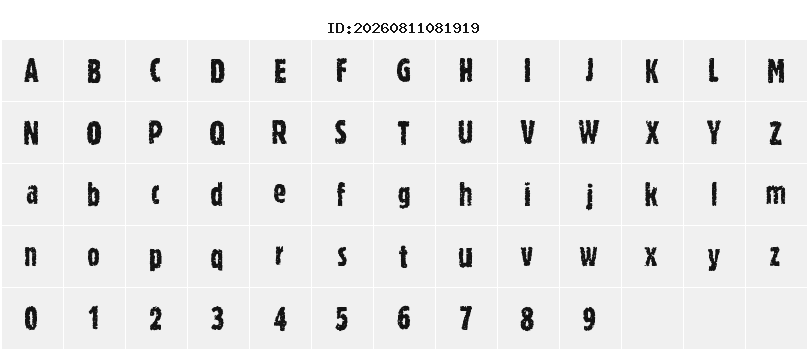
About Romeo.ttf
Romeo.ttf is a modern, elegant sans-serif font designed for ultimate readability and visual harmony. Perfect for branding, headlines, web design, and print materials.